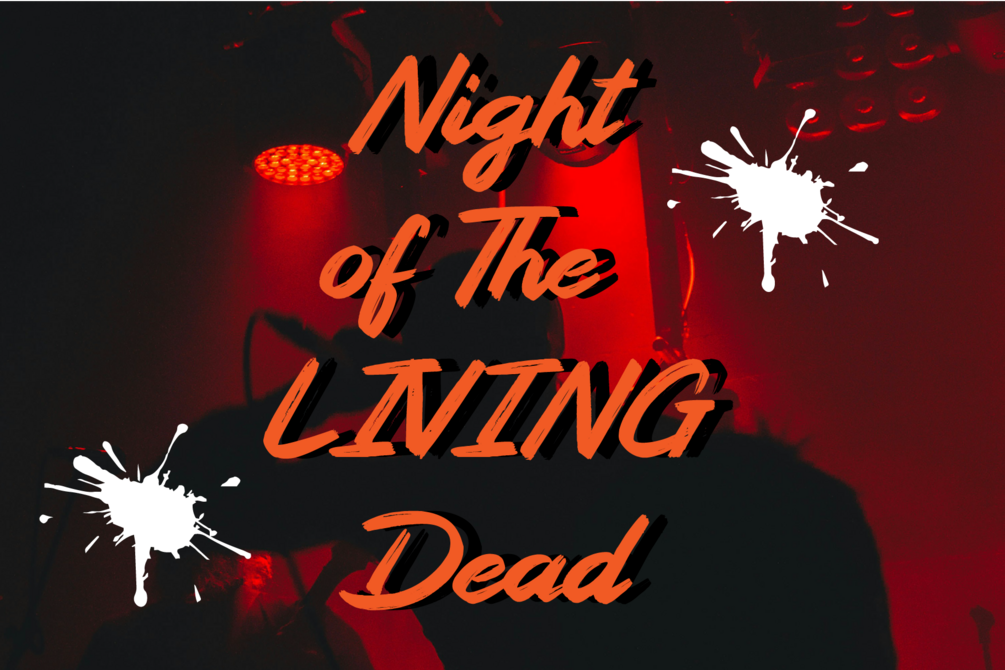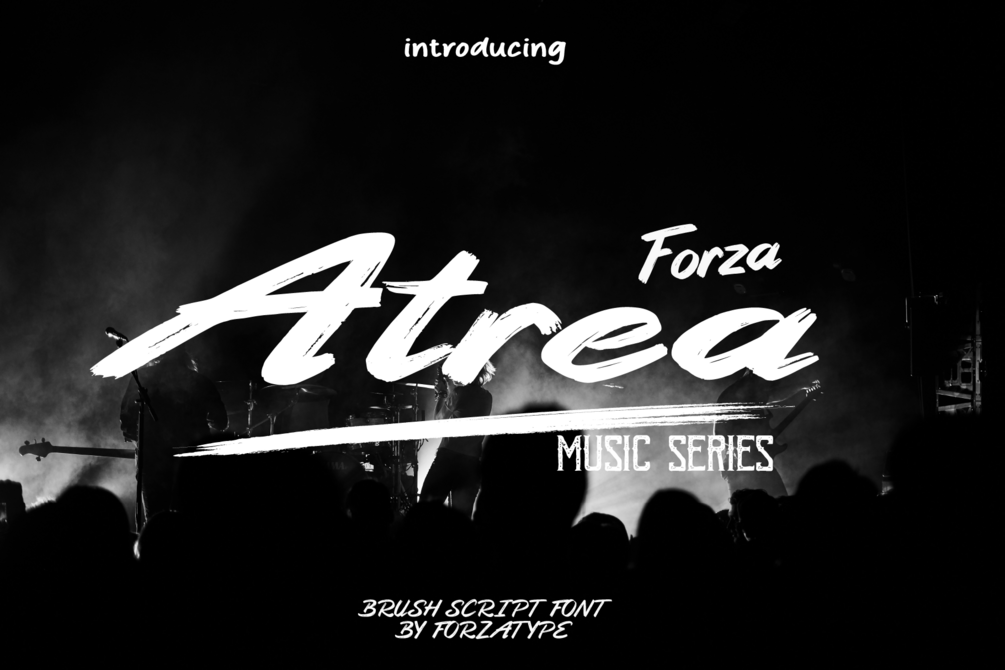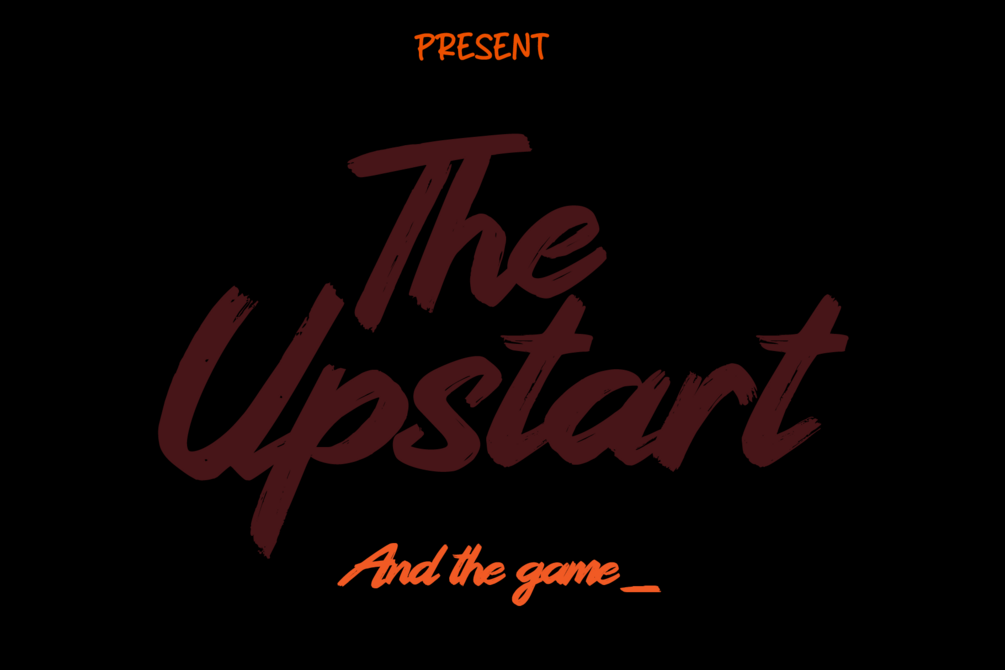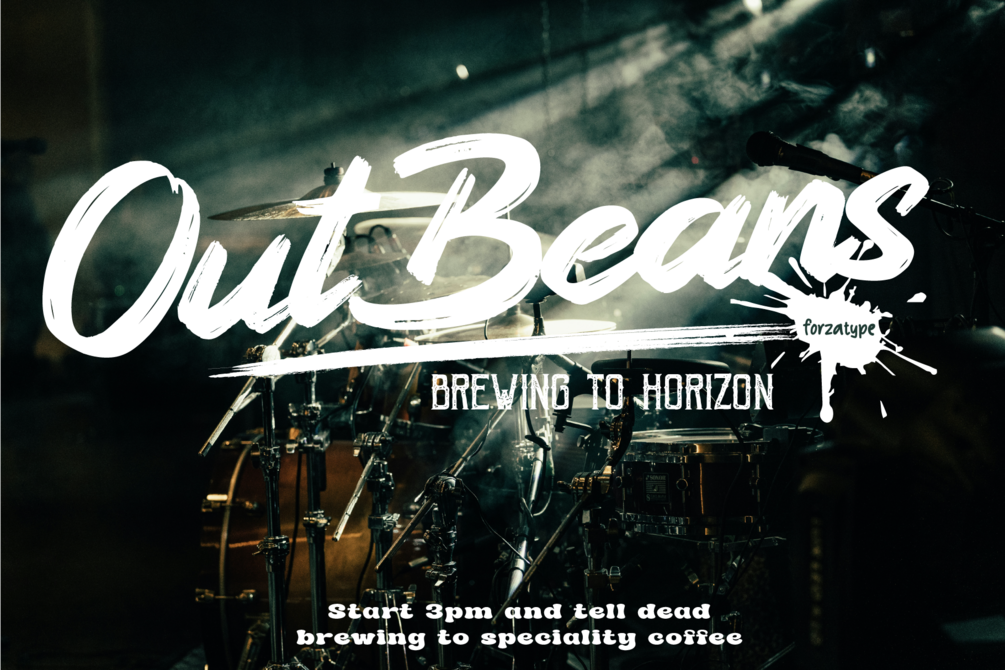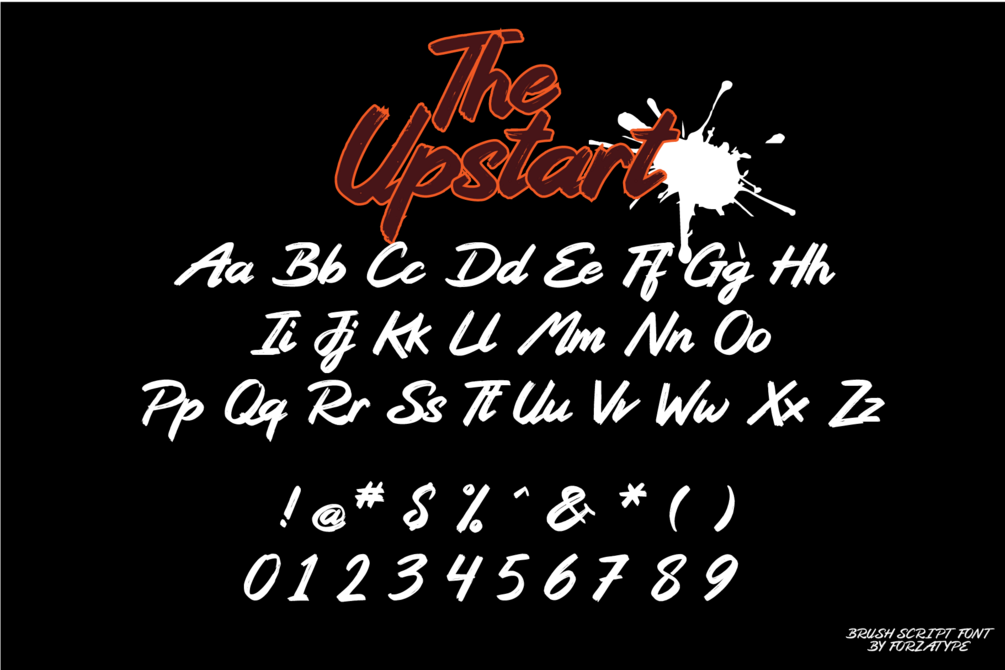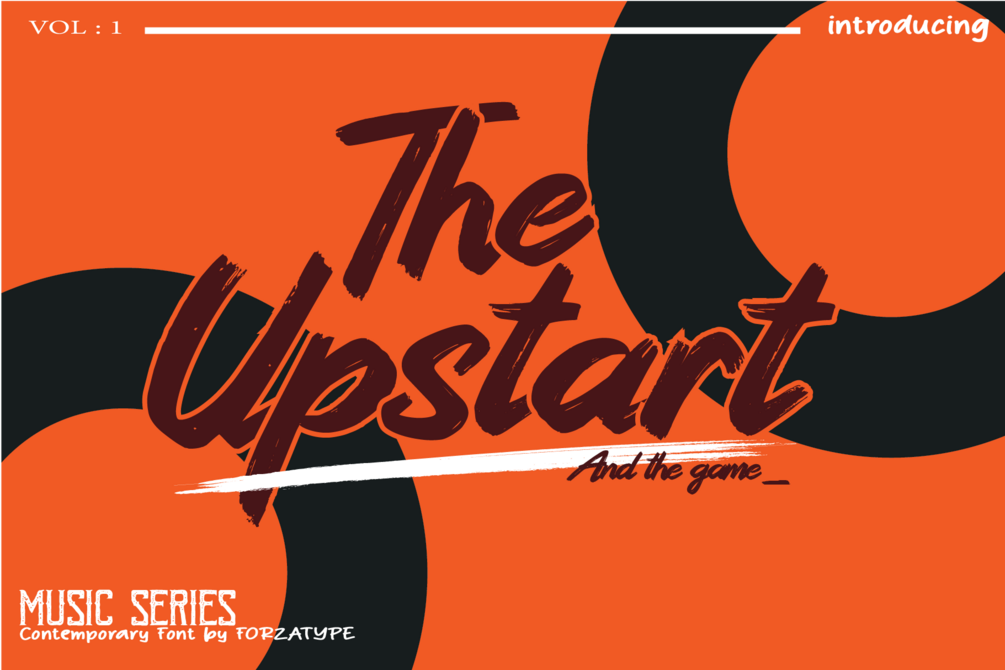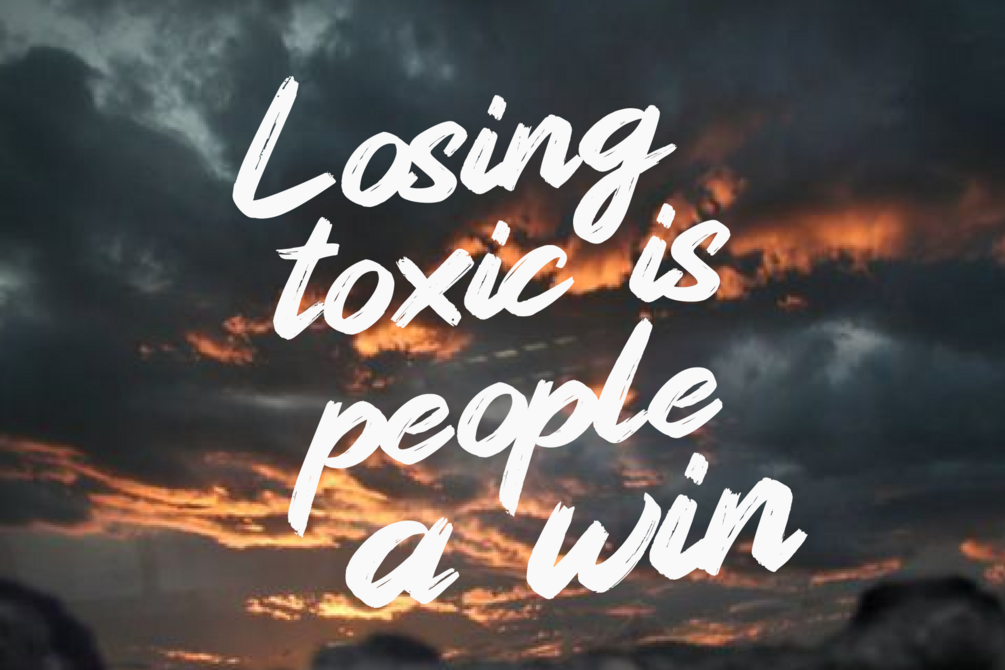
The Upstart Atrea Font
The Upstart is a font crafted from hand-made creativity, with a brush touch that adds an enticing appeal, perfectly blending with a musical concept. This font is ideal for creating displays or promotional materials, infusing designs with a captivating allure. The Upstart features only uppercase, lowercase, symbols, and numbers, making it suitable for music flyers, album covers, and any design where flair is needed....
Standar character A-Z and a-z
Numberial and Functional
Display typeface